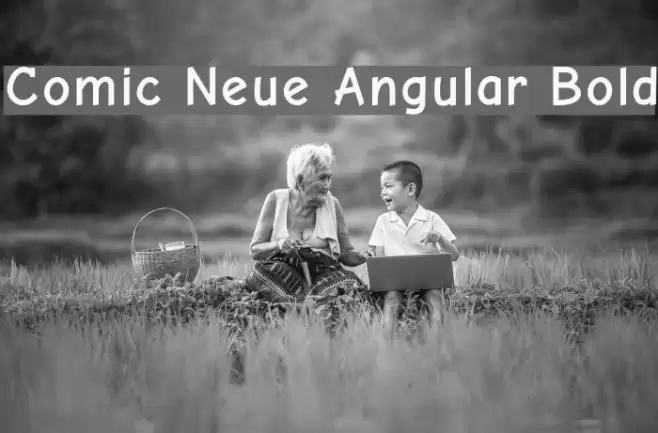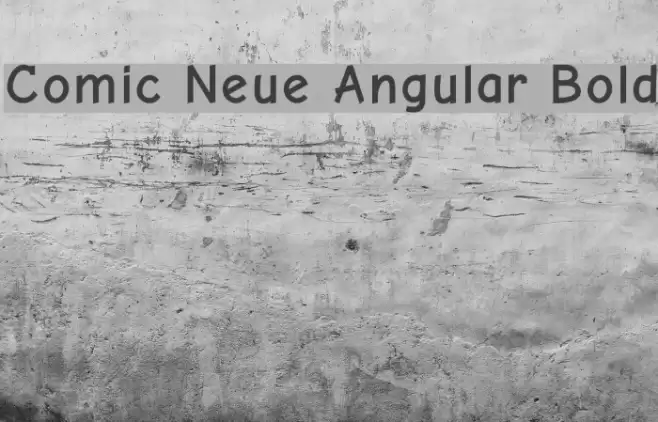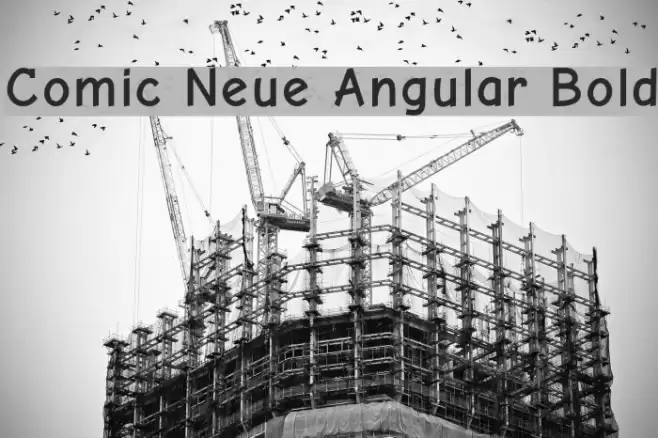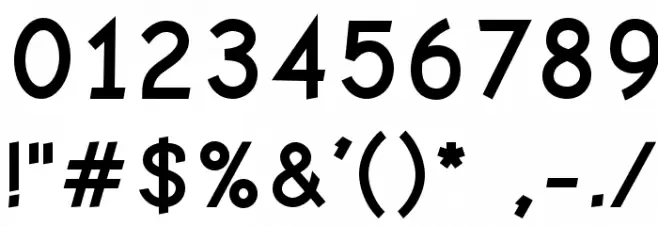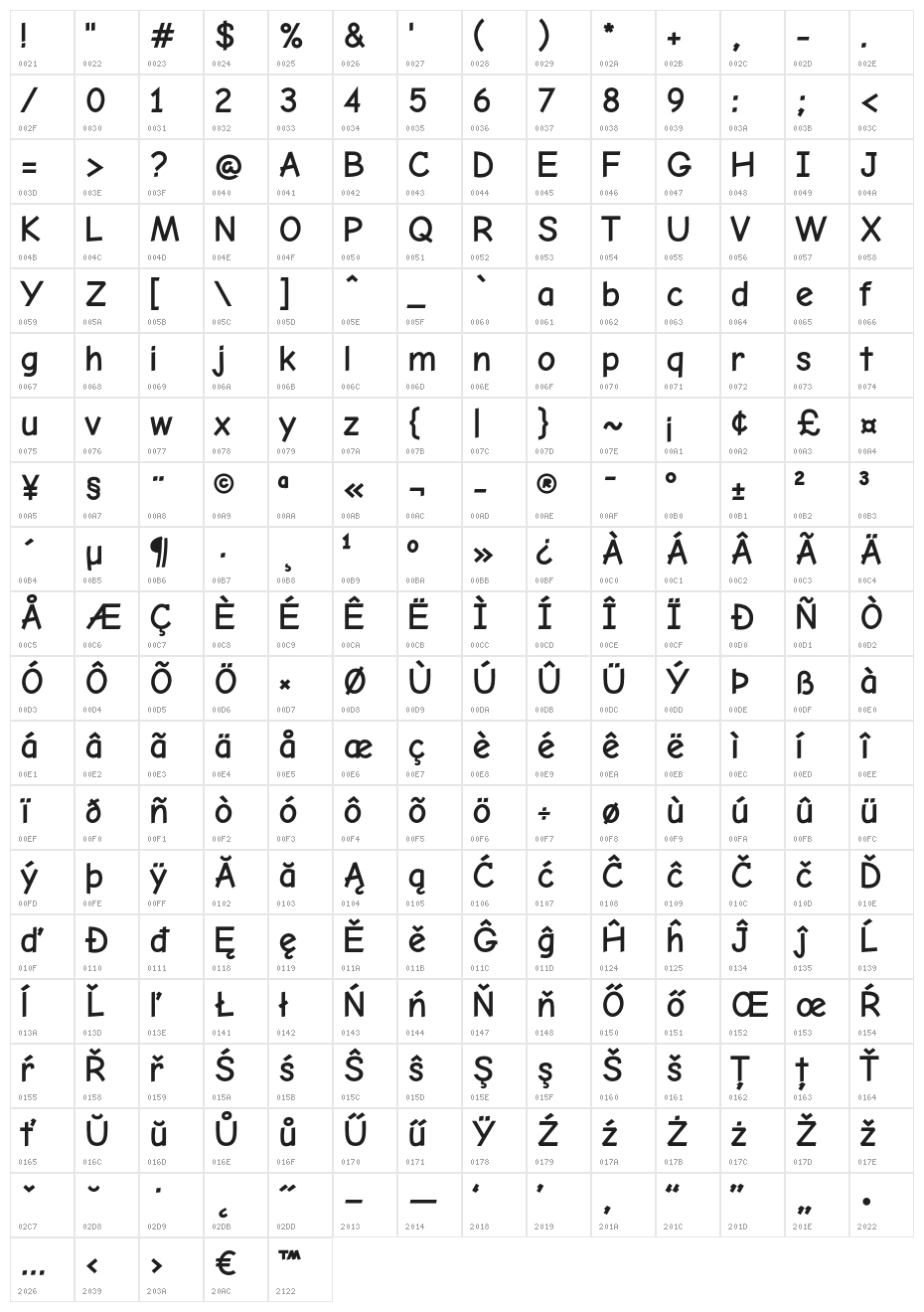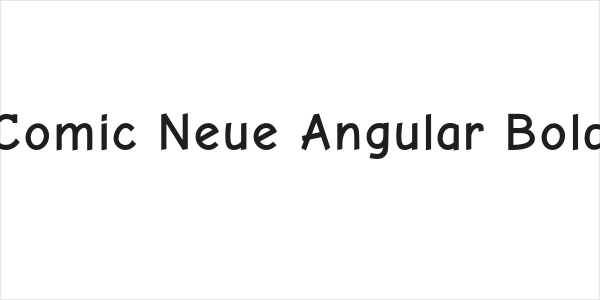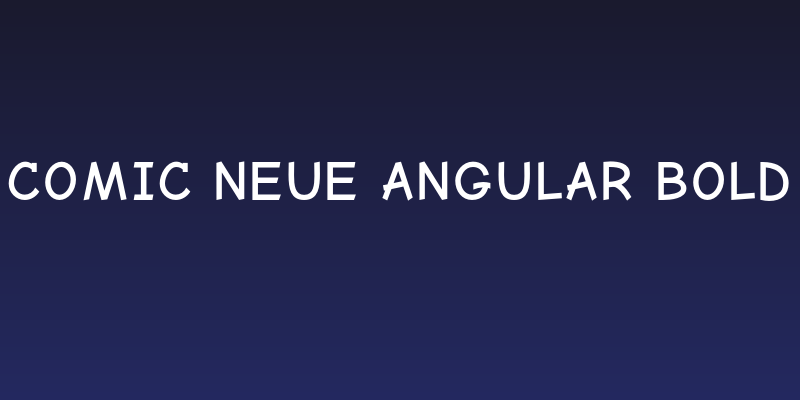
Comic Neue Angular Bold Font
Comic Neue Angular Bold Description
This font presents a playful and modern twist on traditional comic styles, featuring angular edges that add a unique character to each letter. The bold weight enhances its visibility, making it suitable for eye-catching designs. Its clean lines and slightly condensed form provide a contemporary feel, while maintaining a friendly and approachable appearance. The font includes a full set of uppercase and lowercase letters, numerals, and a variety of special characters, ensuring versatility for different design needs. Its balanced character spacing and medium contrast in stroke thickness contribute to its legibility and appeal.
A bold, angular, and modern comic-style font with a playful yet clean appearance from Uncategorized fonts.
- Proposed Projects: Ideal for comic books, children's books, playful branding, posters, and digital content that requires a fun and engaging typeface.